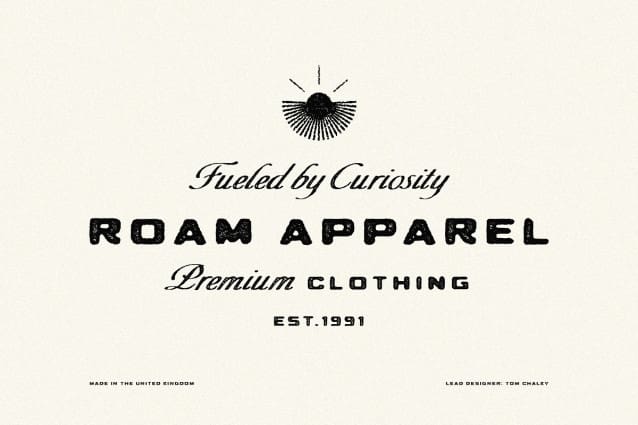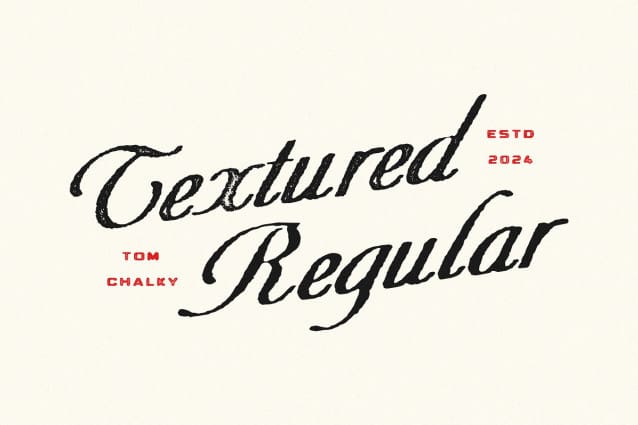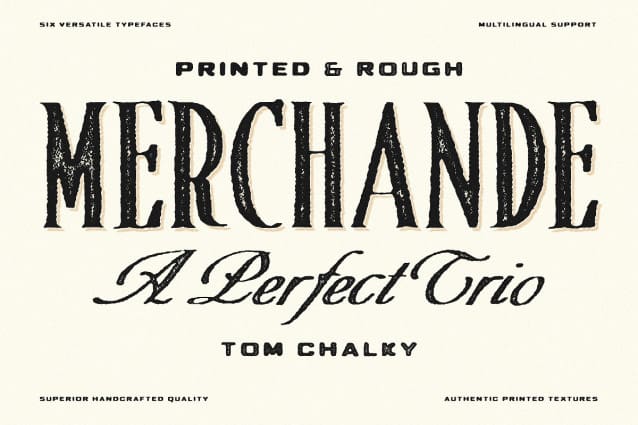
Merchande Print Font Trio
Merchande Print Font Trio – Vintage charm meets modern finesse. The textured evolution of the popular Merchande Trio. Drawing inspiration from a plethora of mid-century typefaces, Merchande Print bridges the gap between nostalgia and contemporary design. This font family offers a handcrafted sans, serif, and script that stand out on their own and blend seamlessly when paired.
Whether it’s elevating your brand’s aesthetic, giving depth to your packaging, or infusing character into your advertising and print endeavors, MerchandePrint is designed to deliver a touch of the artisanal to every word. Dive into the collection and let your creative projects resonate with a genuine textured typographic experience.